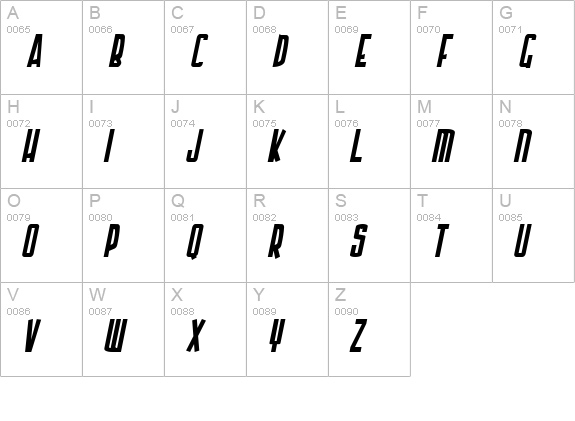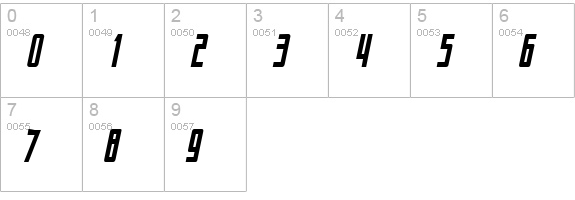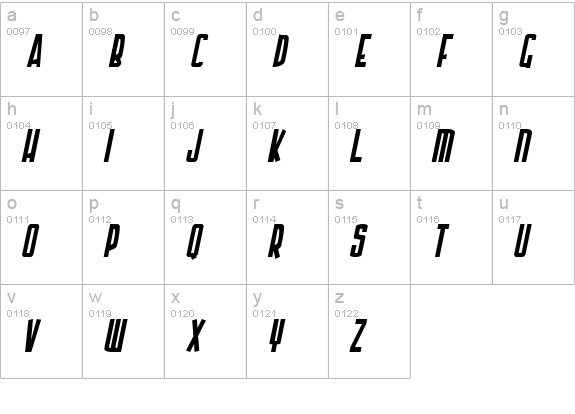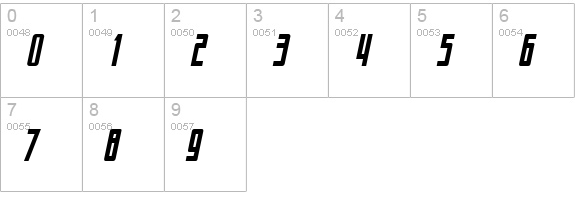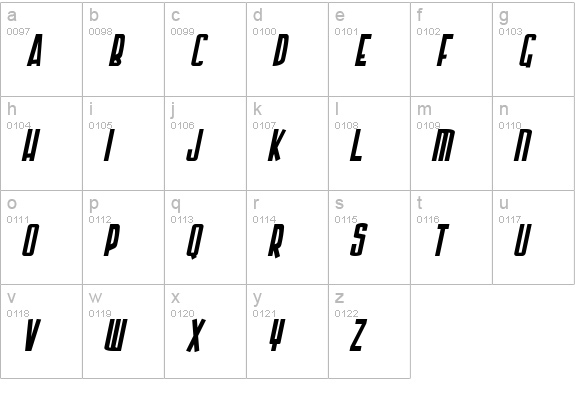
Armor Piercing Italic is a distinctive, italic variant in the Armor typeface family \xE2\x80\x94 well suited to design and typography projects.
Armor Piercing Italic font is a sleek and modern typeface that exudes strength and precision. Its sharp angles and bold lines give it a powerful and edgy look, perfect for conveying a sense of determination and force. The italicized style adds a dynamic flair to any design, making it stand out and command attention. Best of all, Armor Piercing Italic font is available for free download at FontsMarket.com. This means you can easily add this striking font to your collection without any cost, allowing you to use it in a variety of projects without breaking the bank. Don't miss out on the opportunity to enhance your designs with this impactful and eye-catching typeface. Download Armor Piercing Italic font today and take your creations to the next level.